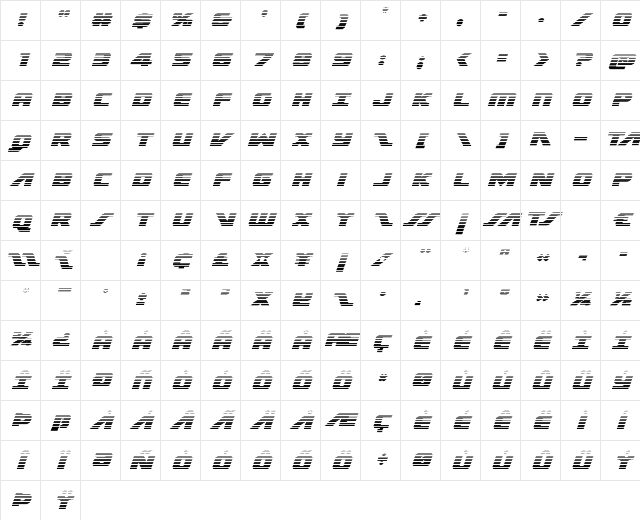
Federal Escort Scanlines Italic Italic
Design Context for Federal Escort Scanlines Italic
Federal Escort Scanlines Italic is a composed and adaptable typeface that performs quietly and consistently across a wide range of design contexts. The slanted form adds forward momentum and visual energy.
Pro Tip: Use Federal Escort Scanlines Italic for emphasis, pull quotes, and subheadings where its slanted energy can add rhythm to the layout.